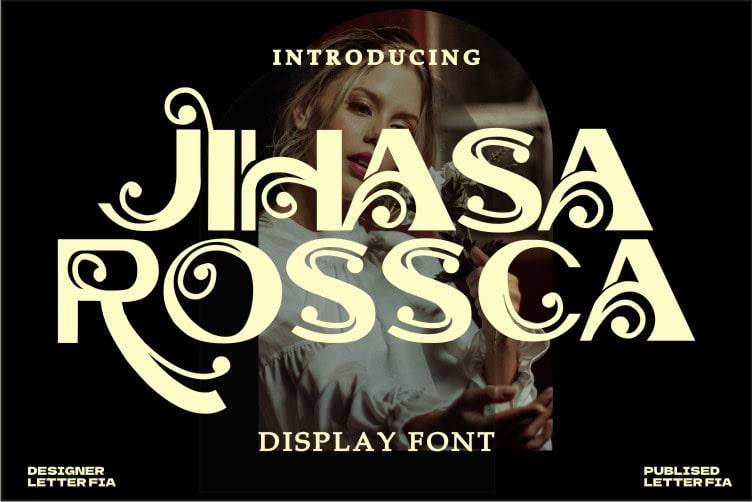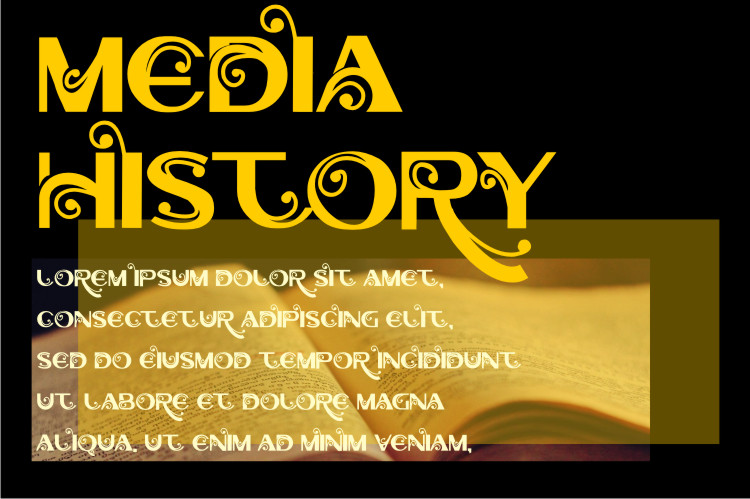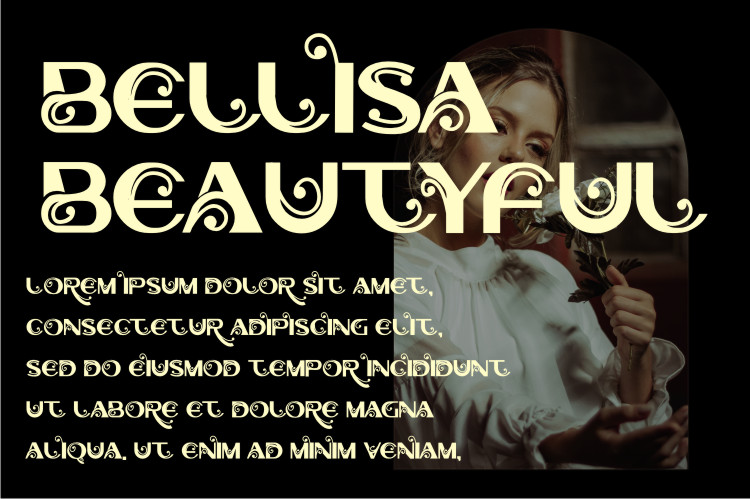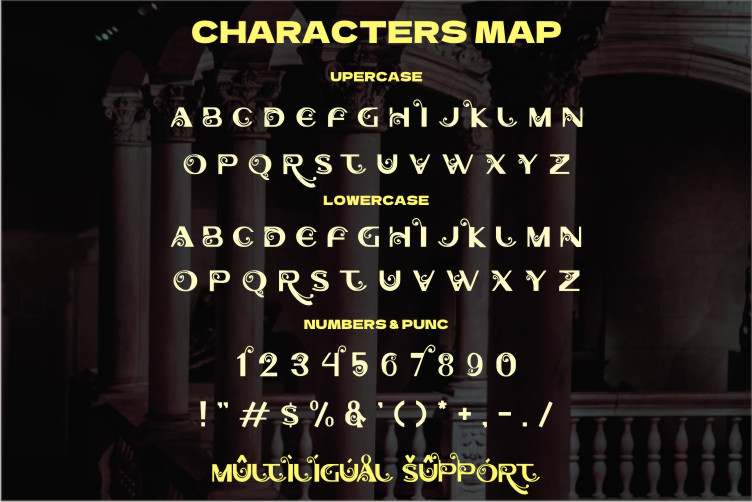
Jihasa Rossca Font
Jihasa Rossca Display Font
This is a stunning, whimsical and unique display font. This font is neatly crafted and highly detailed. Whatever the topic, Jihasa Rossc will be a wonderful asset to your font library, as it has the potential to enhance any creation.